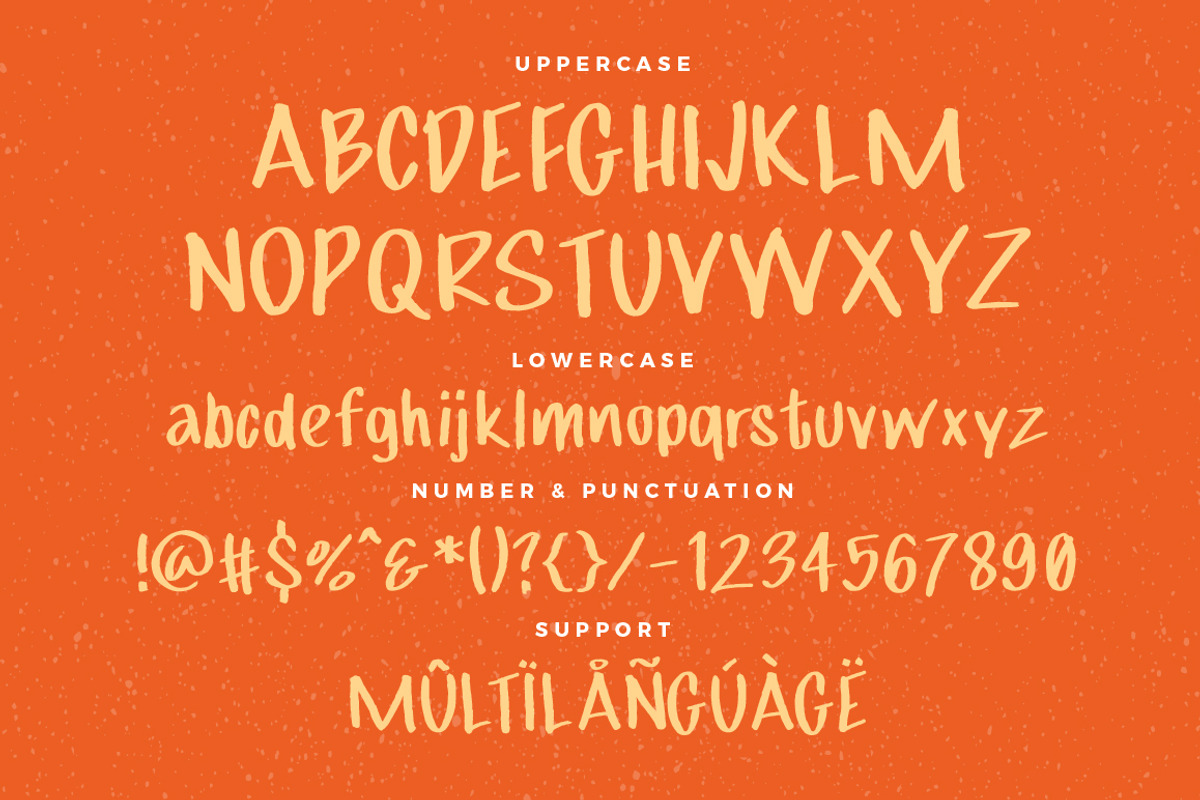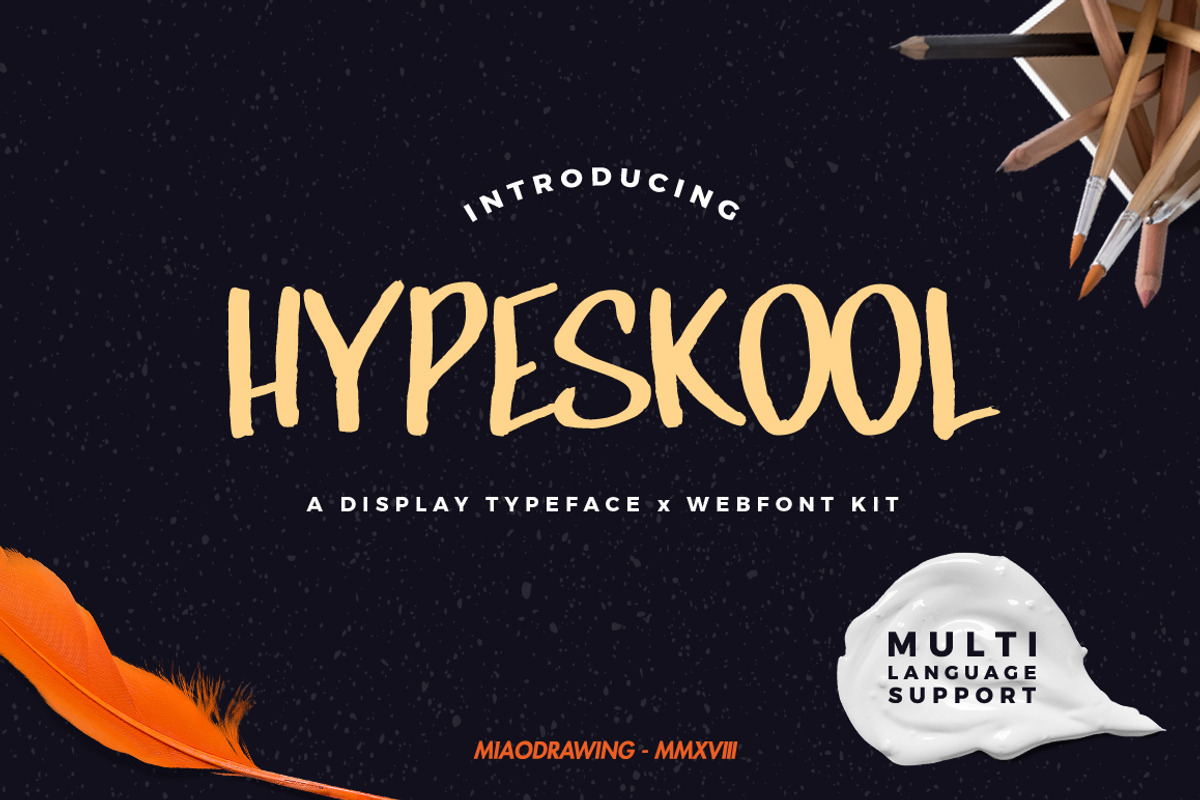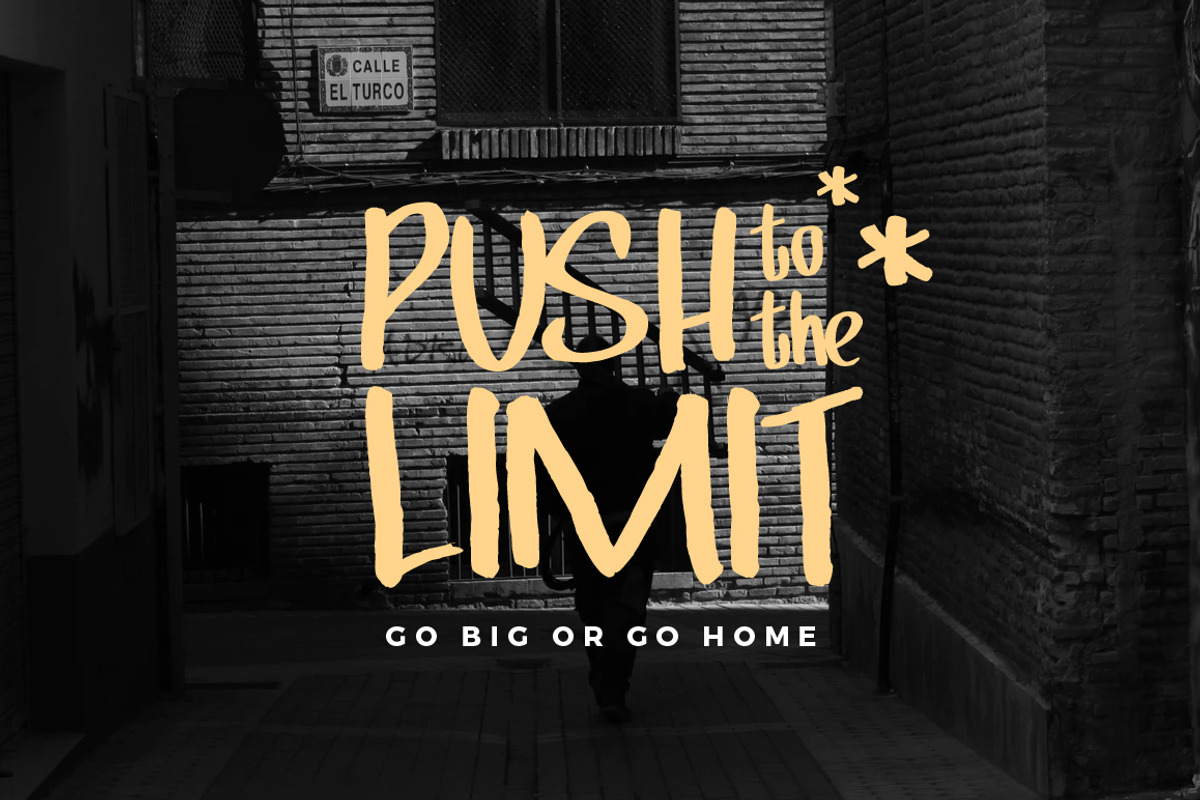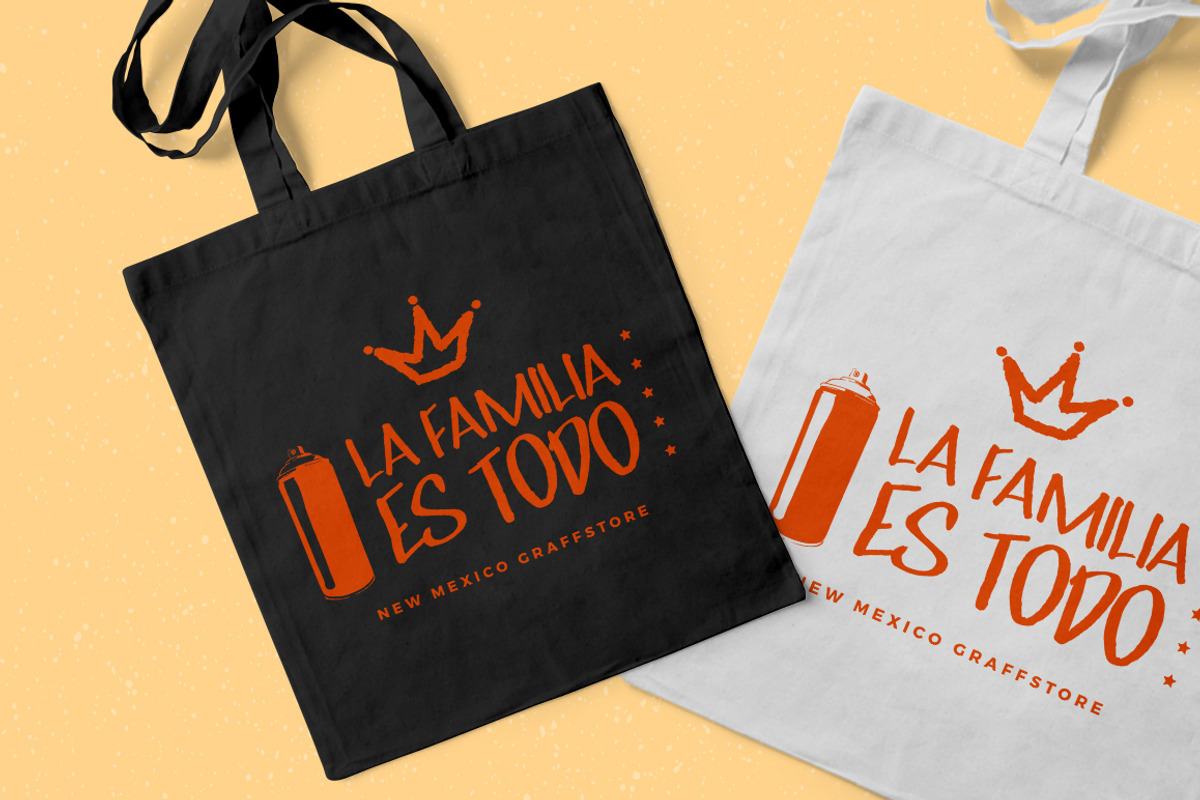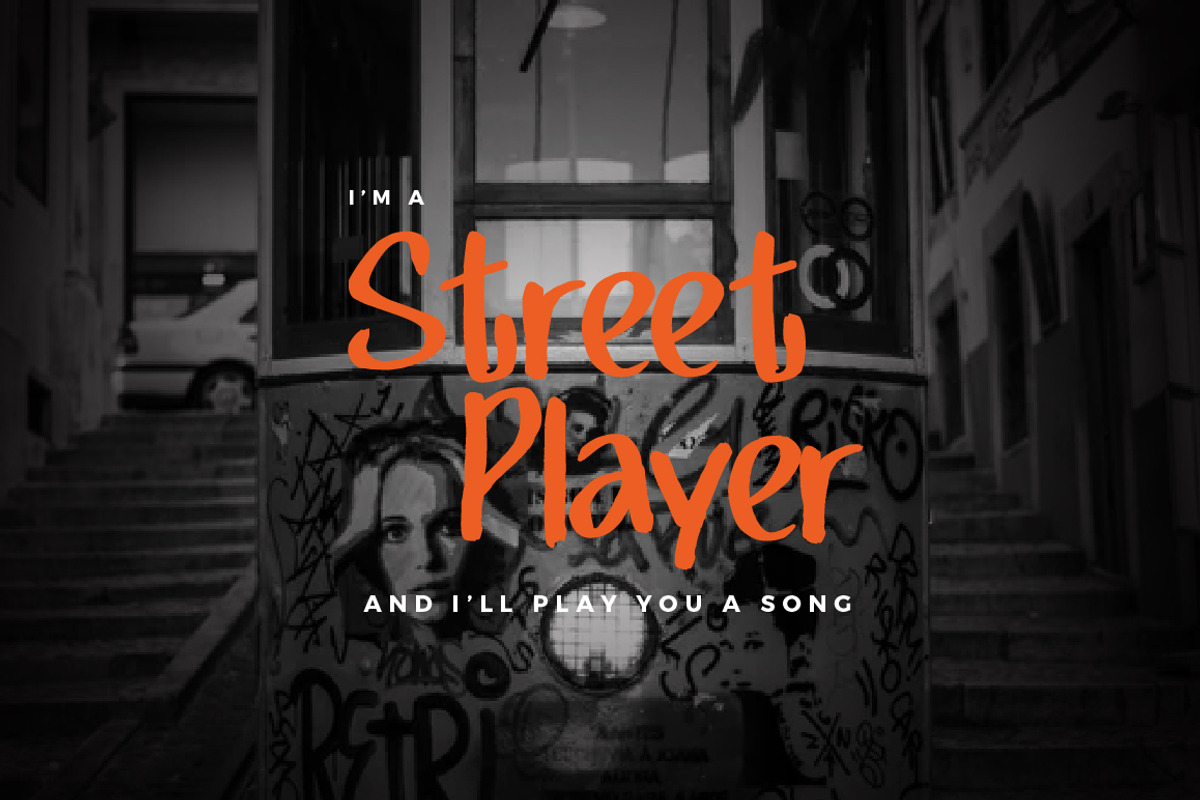
Hypeskool Typeface
Hypeskool Typeface inspired by Street culture like vandalism & graffiti which is a handstyle are fundamental for every writers. Comes up with 100% handmade marker style and vectorized professionally. Absolutely perfect for everyone who'd like to add a 'street' designs, suitable for poster, logotype, apparel designs, or any design requirements.
Multi Language Support
OpenType features with Ligatures in some characters that you can mix and match any letters to fit your design. To access the alternate glyphs, you need a program that supports OpenType features such as Adobe Illustrator CS and Adobe InDesign.